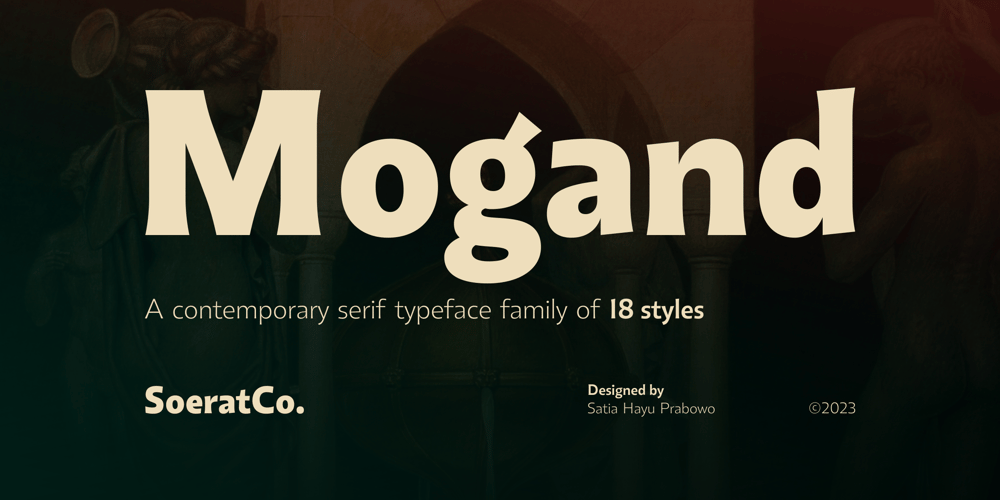
Mogand Font Family was designed by Satia Hayu Prabowo and published by Soerat Company. Mogand contains 18 styles and family package options. Mogand is a contemporary serif typeface that combines a humanist writing style. Mogand family is very suitable for various design needs such as a display font for editorial design, packaging, branding, broadcasting purposes and for any project that requires a clean, modern font with a strong character. This 9-weight family includes oblique and support around 200+ languages as well as several sets of figures.This font provides advanced typographic support with features such as ligatures, alternate characters, old-style figures, fractions, numerator/denominator, superior/inferior, and various symbols.